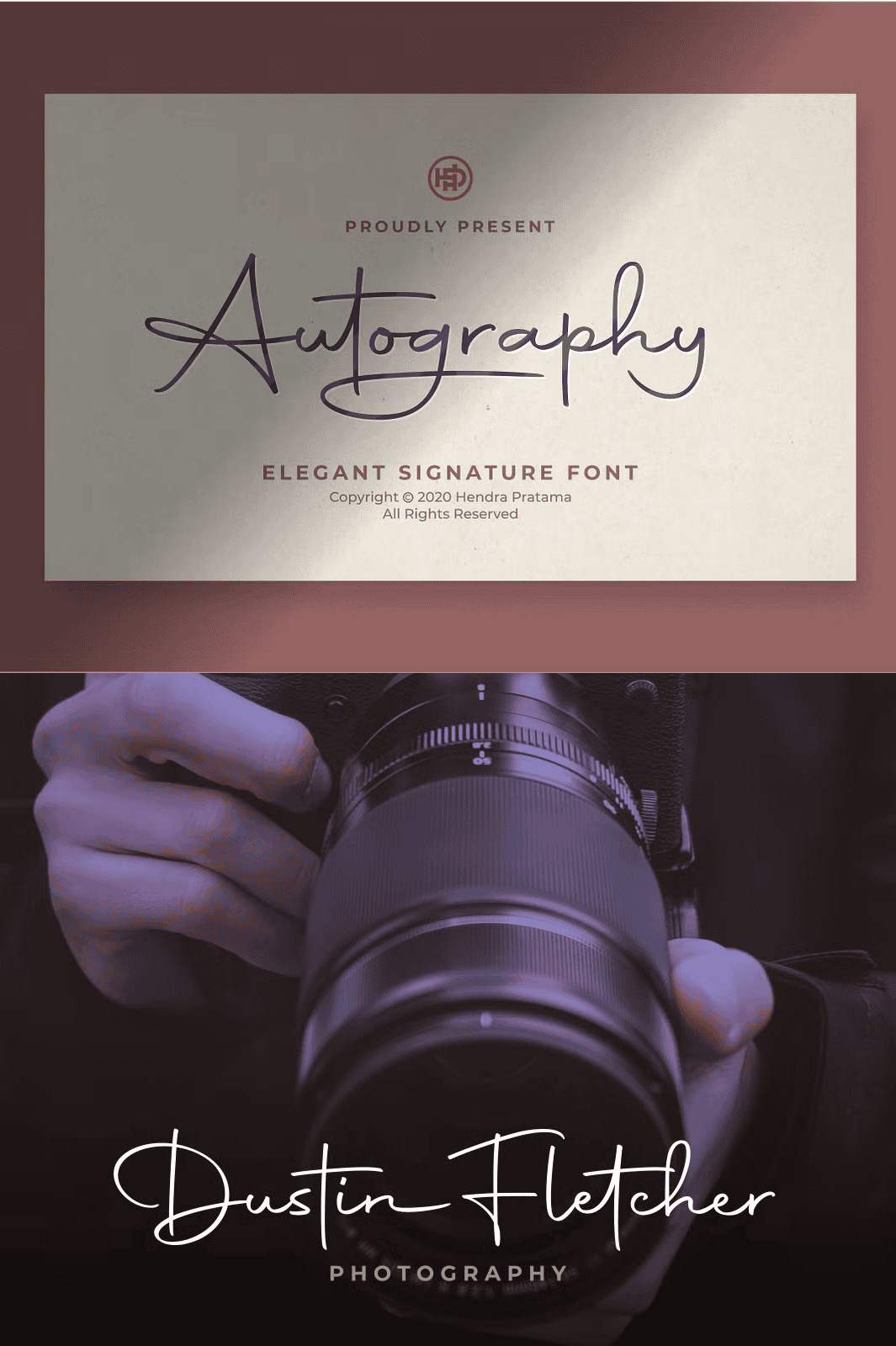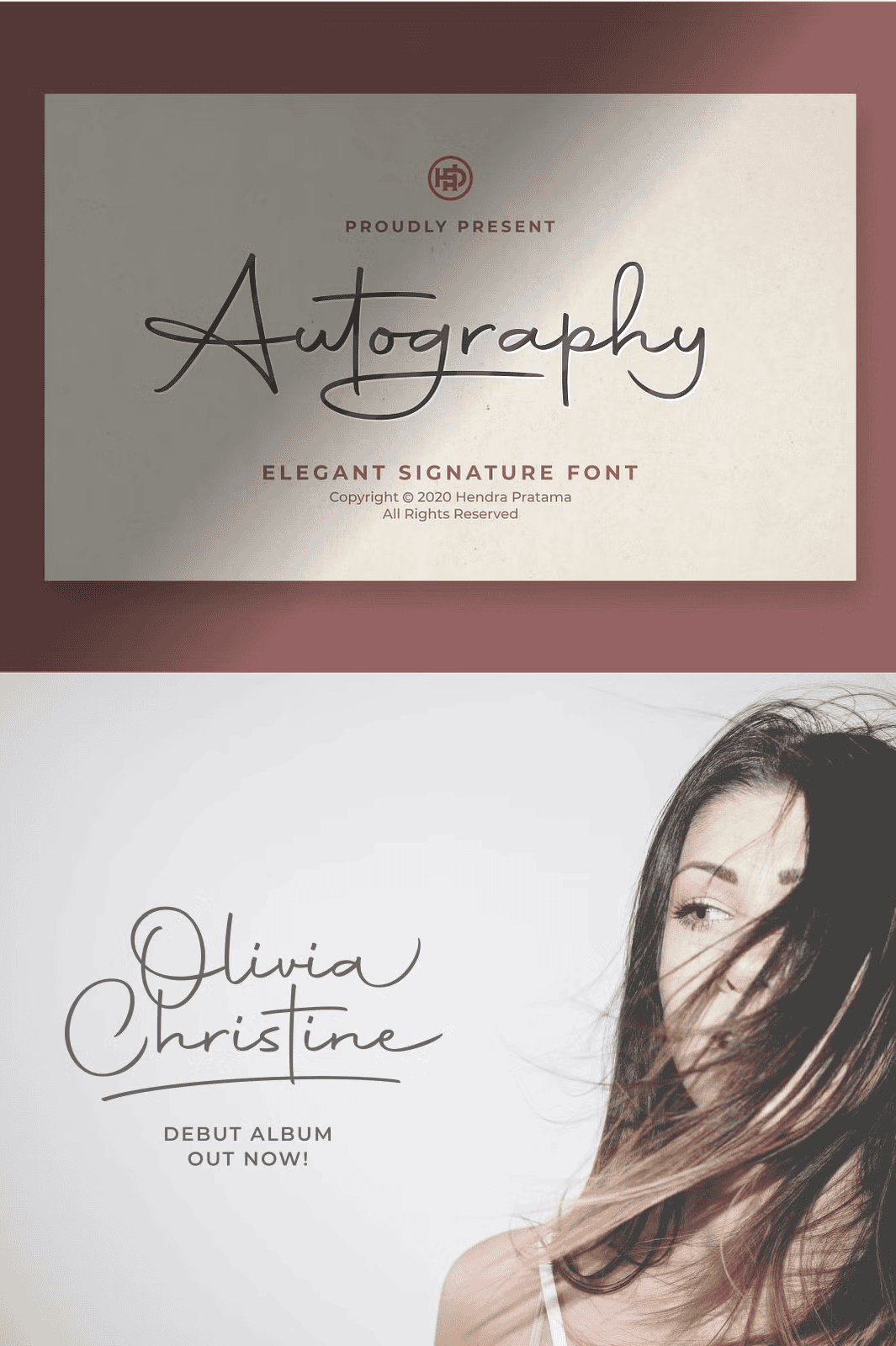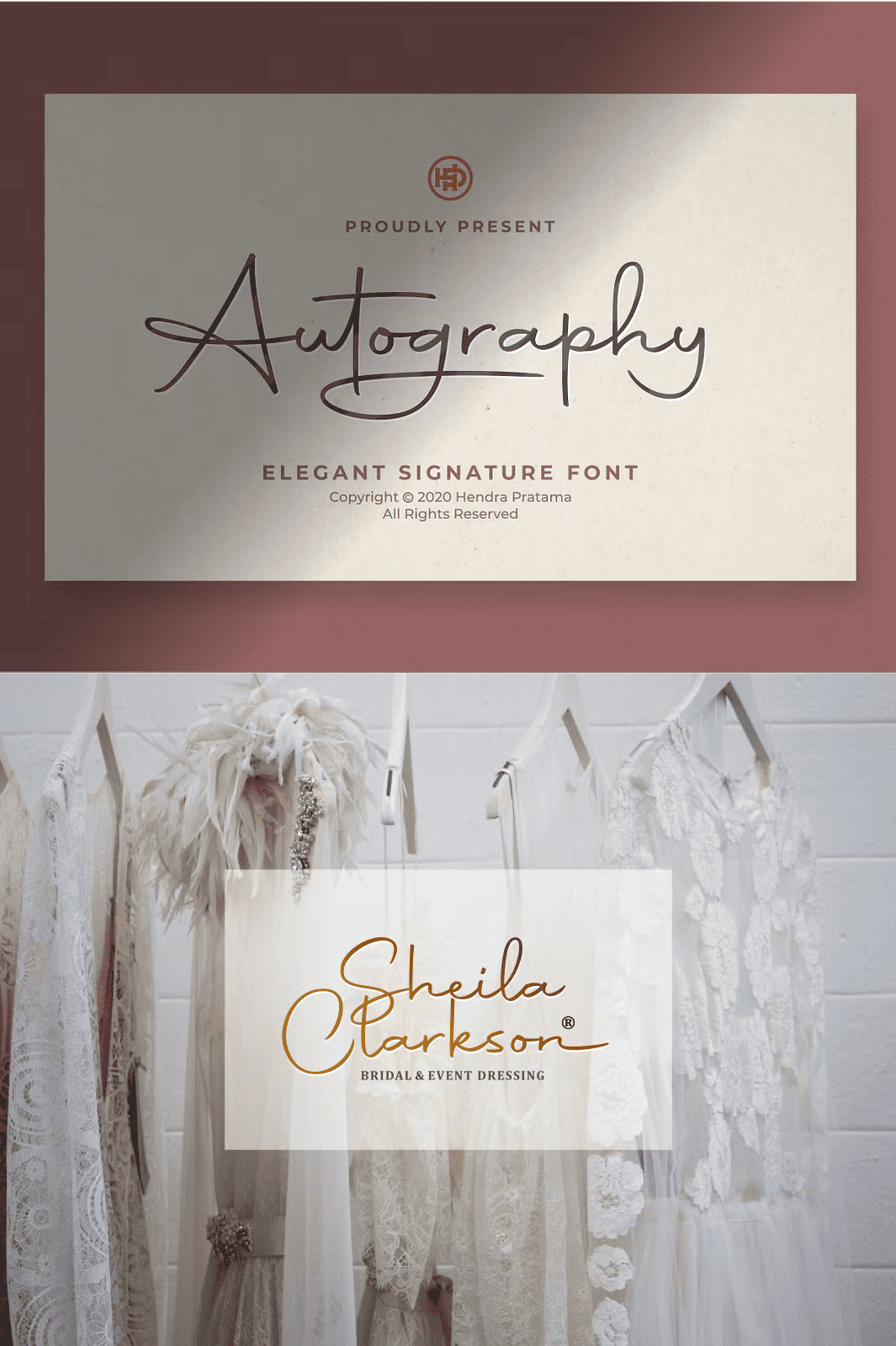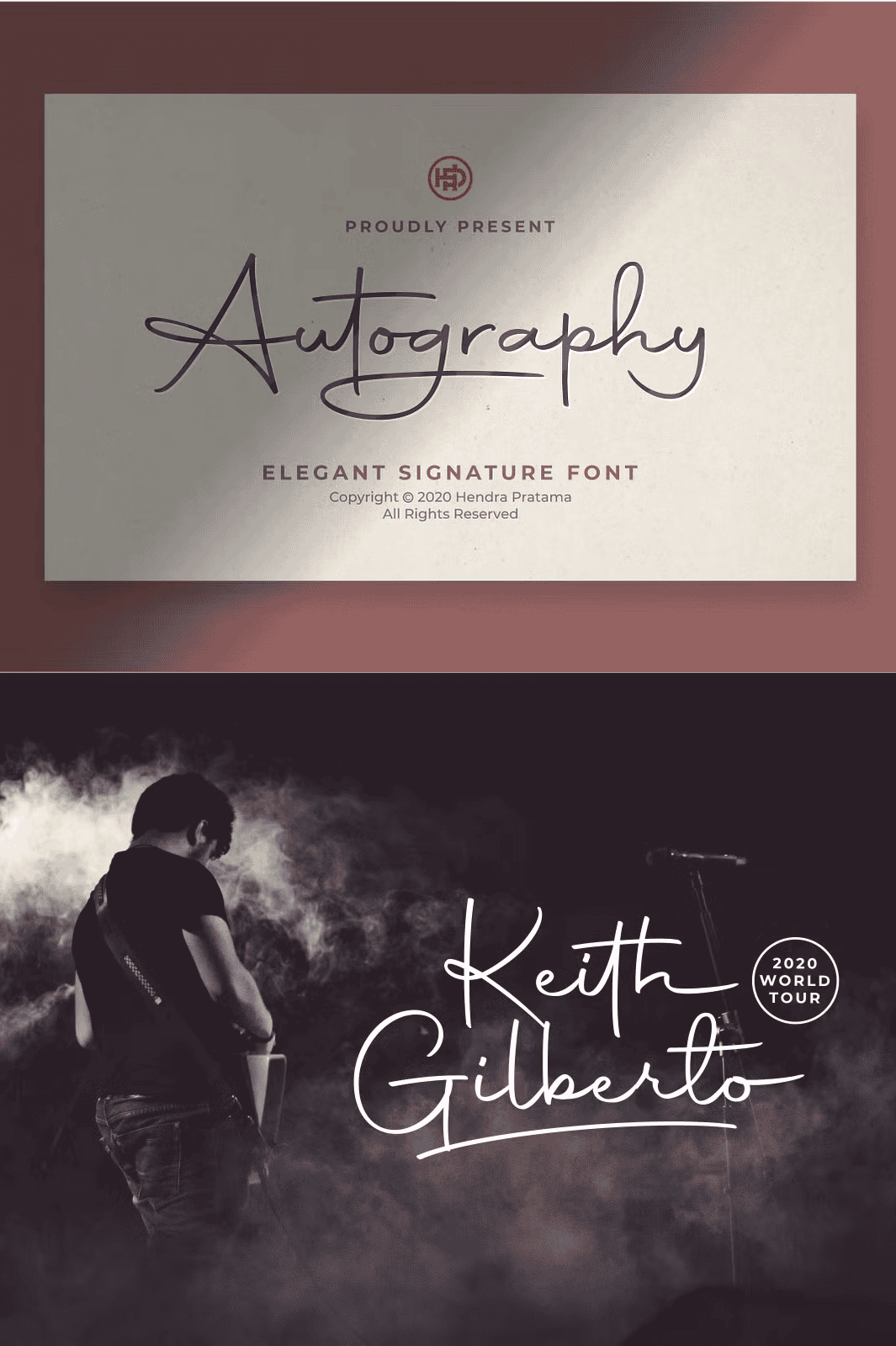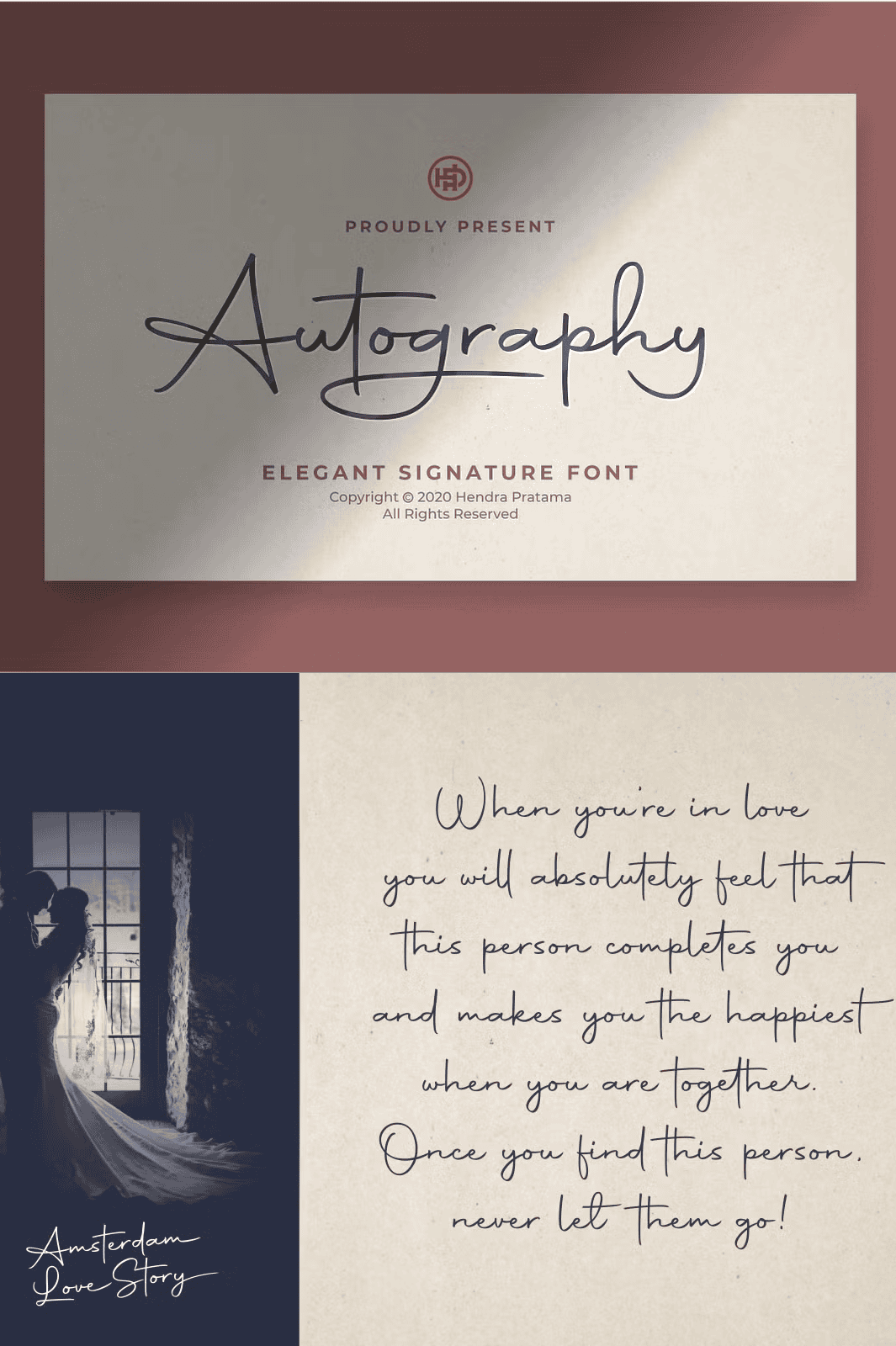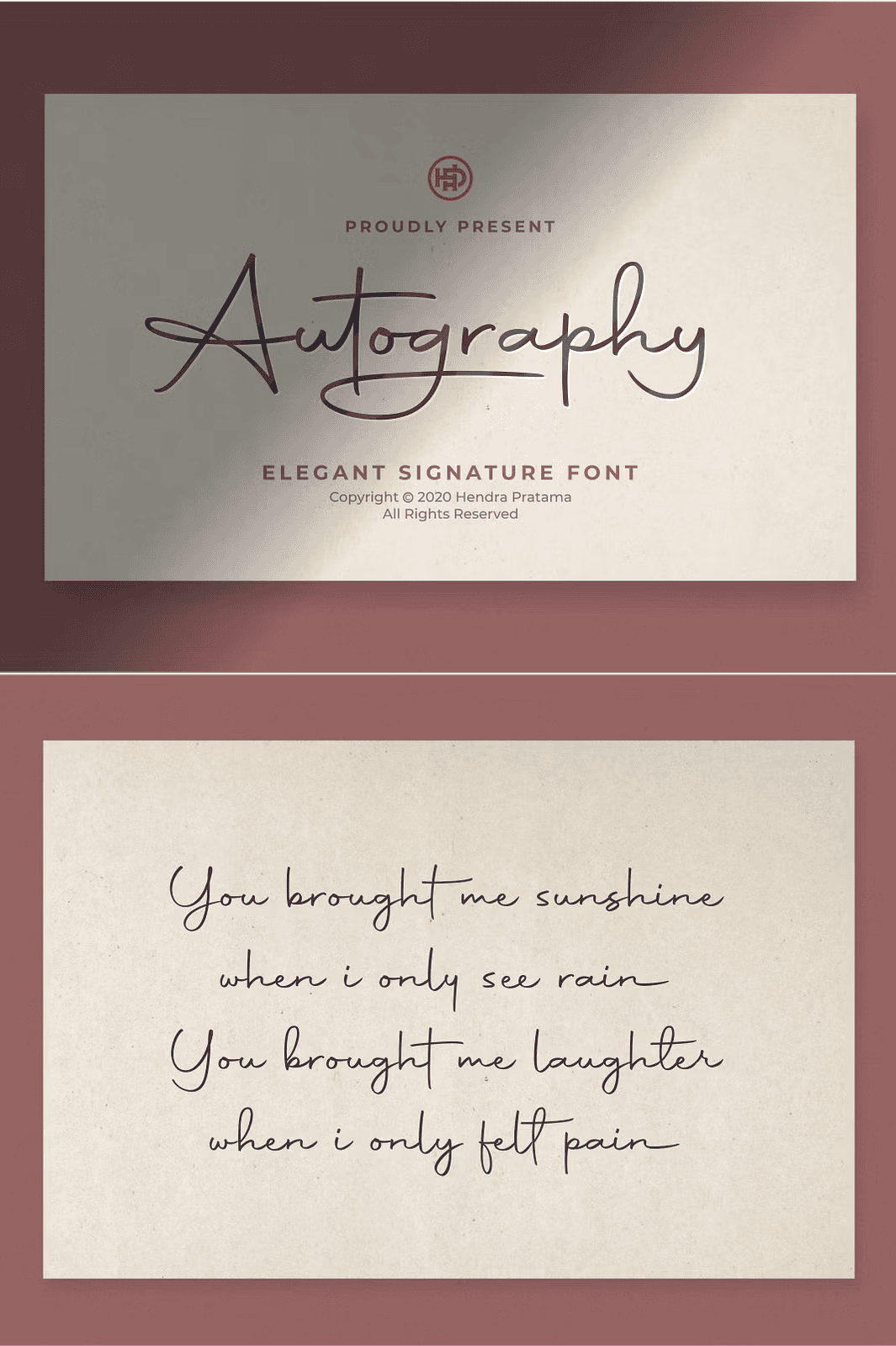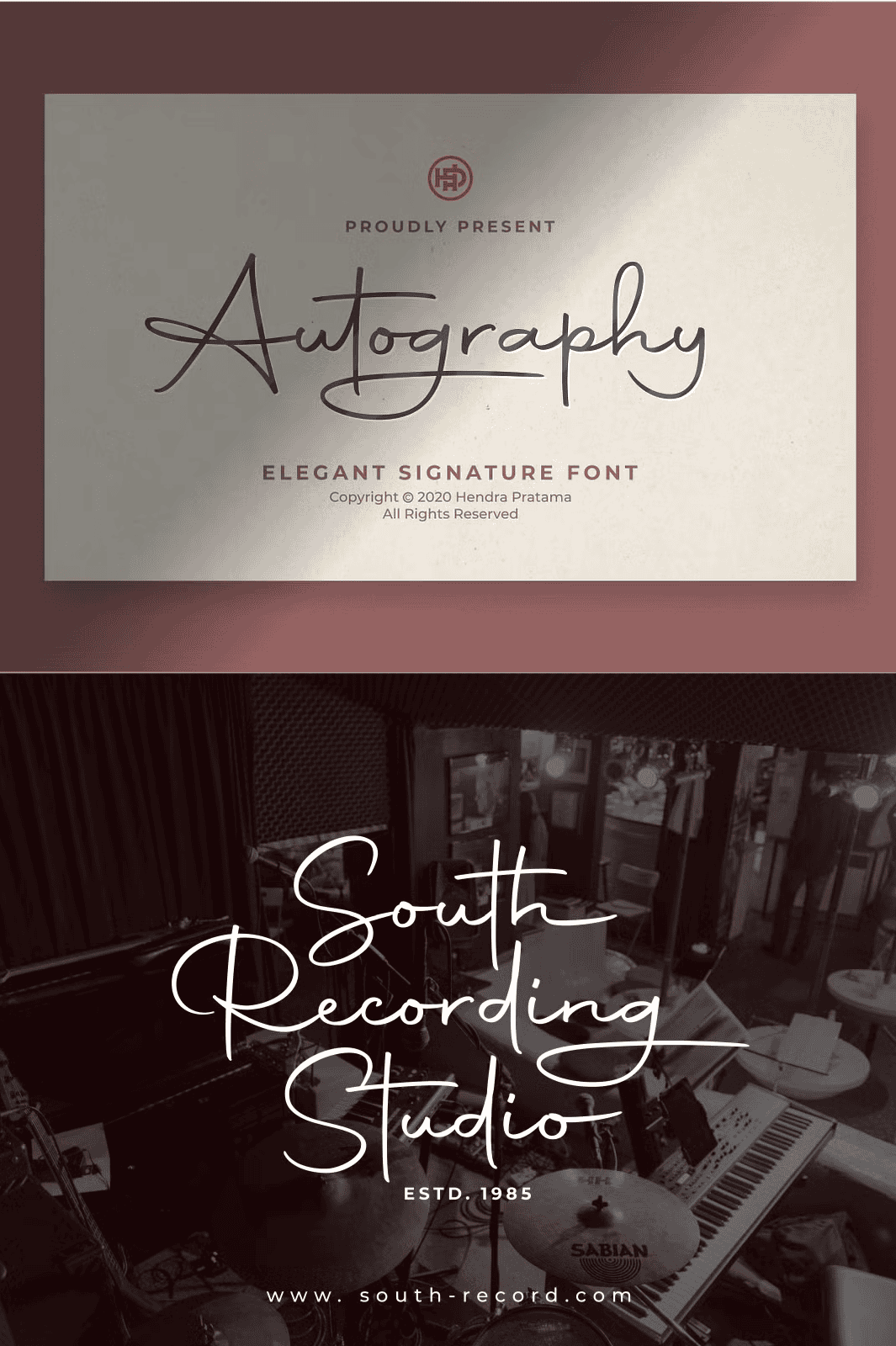
Command Attention with Confident, Smooth Calligraphic Flow
Introducing **Autography** — a bold, refined signature font engineered for impact, elegance, and effortless readability. With its smooth, flowing strokes and upright calligraphic structure, Autography transforms your name, brand, or message into a powerful visual statement. Whether you’re crafting a personal namecard, designing a luxury brand logo, or setting the tone for a high-end fashion magazine, this font commands attention with quiet sophistication and modern grace.
Unlock Maximum Versatility with Advanced Typography Features
Autography isn’t just stylish — it’s built for professional use. Designed with a comprehensive set of typographic tools, this font delivers unparalleled flexibility:
- Stylistic Alternates: Switch between refined and dynamic versions of letters for subtle variation.
- Stylistic Sets 01–06: Access curated groups of alternate glyphs to enhance rhythm and originality.
- Ligatures: Enable seamless, connected letterforms for a fluid, hand-sketched appearance.
- Contextual Alternates: Let the font automatically adjust letterforms based on surrounding characters for natural flow.
- Swashes: Add dramatic flourishes to finish words with flair — ideal for headers, titles, and quotes.
Each feature is carefully designed to bring out the unique personality of your design while maintaining consistency across platforms.
Optimized for Creative Projects of Every Kind
Autography is engineered for professionals across industries who demand both beauty and functionality. Use it to:
- Create powerful, authentic digital signatures for personal or business use
- Craft compelling cosmetics posters and fashion magazine spreads
- Develop eye-catching book covers and movie title sequences
- Design minimalist but striking quote graphics and social media visuals
- Generate elegant stationery and personal branding materials
This font bridges the gap between personal expression and professional polish — making it a must-have in your design arsenal.